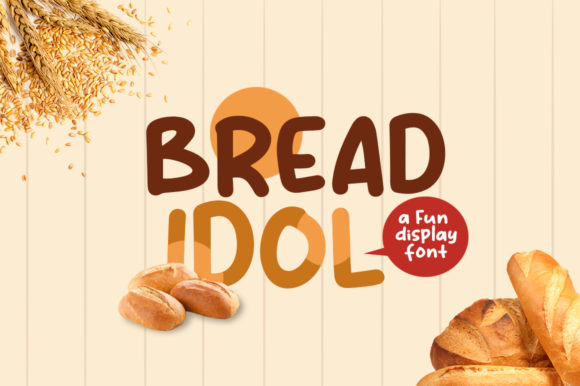
Are you a creative visionary searching for a font that dances with whimsy and captures the playful essence of your imagination? Look no further than Bread Idol Font, the captivating display font that's sure to ignite your designs with a burst of joy and creativity.
Bread Idol Font is not just a font; it's an artistic gateway to a world where typography meets magic. Its meticulously crafted characters exude a charm that's impossible to resist, enveloping your designs in an aura of enchantment. With its delightful curves and playful strokes, Bread Idol Font breathes life into your words, transforming them into visual masterpieces.
Unleash the boundless potential of Bread Idol Font and embark on a creative journey where imagination reigns supreme. Let your designs take flight with this font's infectious energy, creating captivating posters, eye-catching logos, enchanting invitations, and whimsical social media posts that leave a lasting impression.
Whether you're a seasoned designer or just starting your creative adventure, Bread Idol Font is the perfect companion for your artistic endeavors. Its user-friendly nature makes it accessible to all, while its versatility allows it to shine in a myriad of design projects.
Experience the transformative power of Bread Idol Font today and witness how it elevates your designs to new heights. Let your creativity soar as you craft enchanting visuals that captivate and inspire. Join the growing community of designers who have embraced the magic of Bread Idol Font and let your imagination run wild.